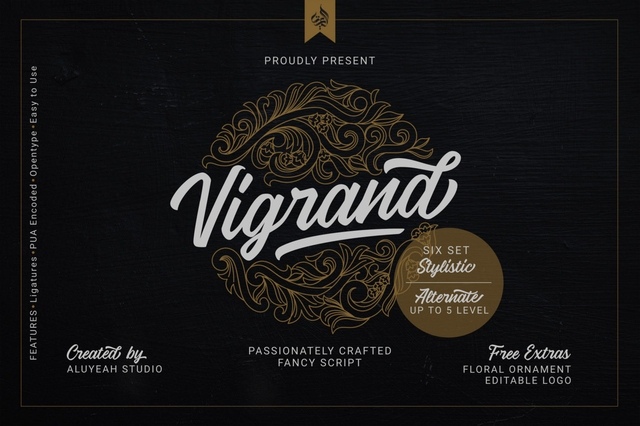
Vigrand Script Font
Vigrand Script Font is perfectly suited for luxury brand logos, elegant wedding invitations, high-end fashion labels, sophisticated restaurant signage, premium product packaging, upscale boutique branding, exclusive event materials, refined beauty product labels, and distinguished calligraphy projects.
What makes Vigrand Script Font so exciting is its extraordinary elegance and sophisticated flourishes that instantly elevate any design project with aristocratic grace and timeless luxury appeal in every meticulously crafted letterform. This magnificent typeface embodies the finest traditions of classical calligraphy with its flowing curves and ornate details that evoke images of royal correspondence and exclusive luxury experiences. The font's dramatic swashes and refined proportions create an atmosphere of prestige and exclusivity that resonates with discerning audiences who appreciate the highest levels of craftsmanship and artistic excellence. Vigrand Script Font stands out through its ability to convey luxury, sophistication, and aristocratic elegance, making it perfect for projects that need to establish premium positioning while creating memorable experiences that celebrate refinement, exclusivity, and sophisticated taste.
The Vigrand Script Font family includes Regular and Bold weights, each maintaining the font's distinctive luxury character while providing design flexibility for various high-end applications. The family also features extensive swash alternates, decorative flourishes, and ornamental elements that enhance the font's aristocratic appeal and provide comprehensive solutions for sophisticated luxury design projects.
The technical mastery of Vigrand Script Font includes an extensive character set with uppercase and lowercase letters, numerals, punctuation marks, and luxury symbols that maintain the font's aristocratic character. The font incorporates advanced OpenType features including contextual alternates, stylistic sets, and connecting ligatures that create seamless script flow and authentic calligraphic beauty throughout extended text applications.
Whether you're designing luxury brand identities, creating exclusive event materials, developing premium product packaging, or crafting designs that require aristocratic elegance and sophisticated luxury appeal, Vigrand Script Font delivers the perfect combination of classical refinement and contemporary functionality that makes your projects exquisitely memorable and prestigious for audiences seeking the ultimate in luxury and sophistication.